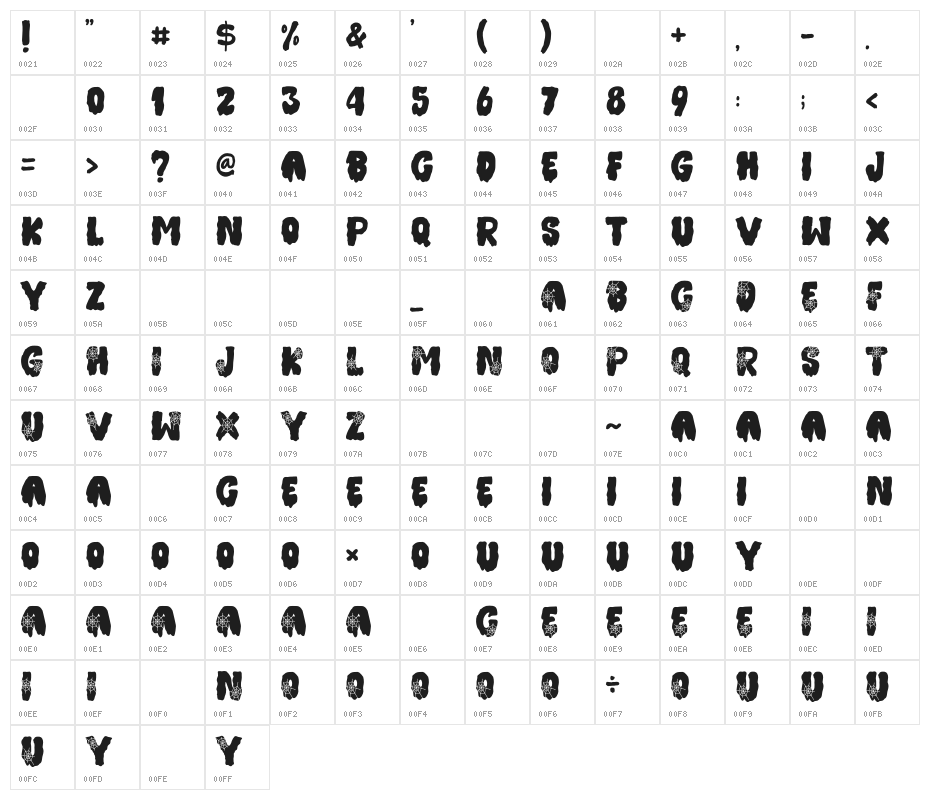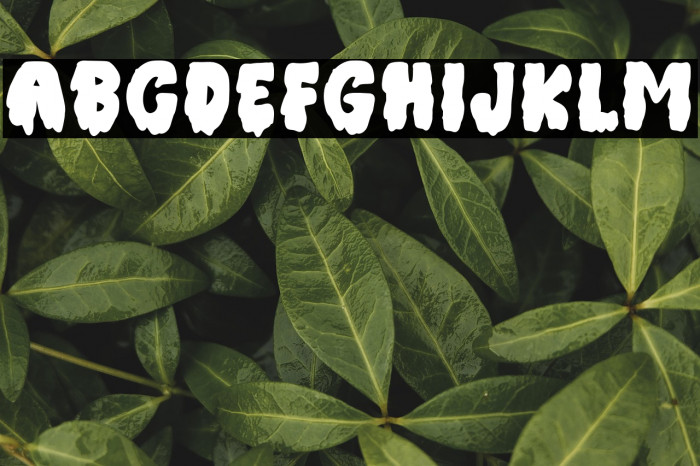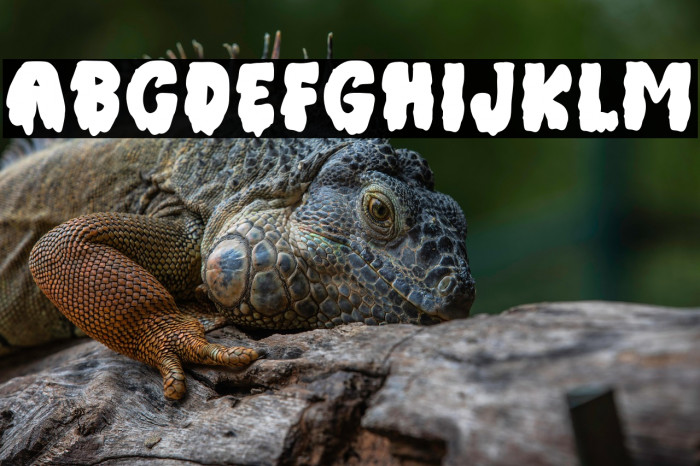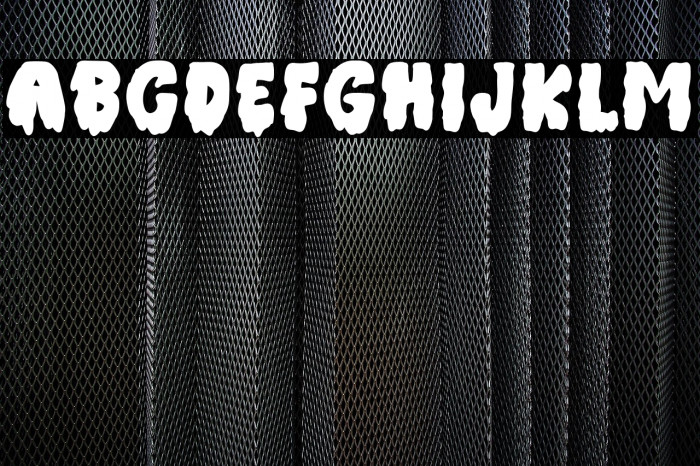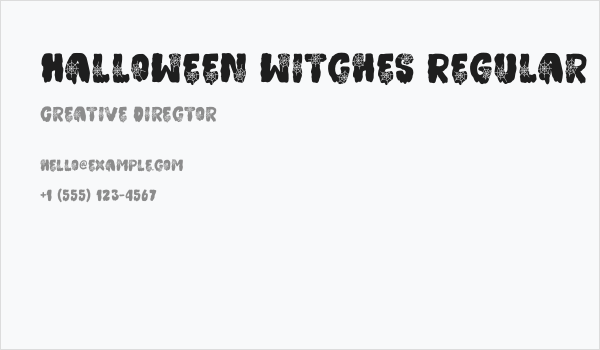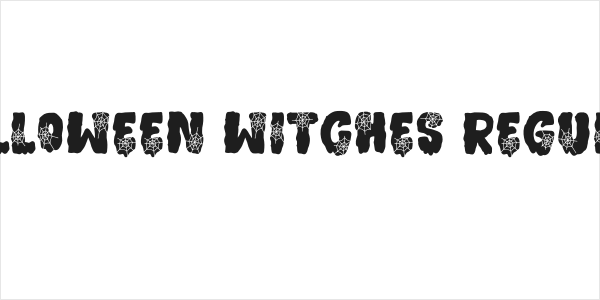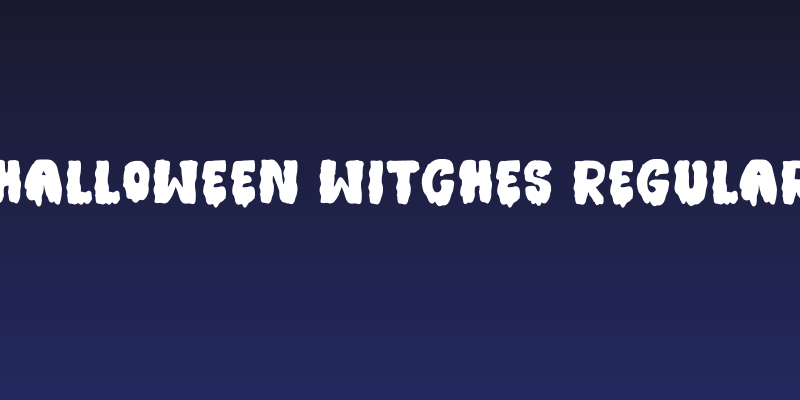
Halloween witches Regular Font
Halloween witches Regular Description
This font features a playful and spooky design, perfect for Halloween-themed projects. The letters are bold and chunky, with irregular edges that give them a hand-drawn appearance. Some characters are adorned with cobwebs, adding to the eerie aesthetic. The numbers and special characters maintain the same style, ensuring consistency across all text elements. This font captures the essence of Halloween with its whimsical yet slightly creepy vibe, making it ideal for festive decorations, party invitations, or themed posters.
| Proposed Projects | Ideal for Halloween party invitations, spooky posters, themed decorations, and creative projects requiring a festive touch. |